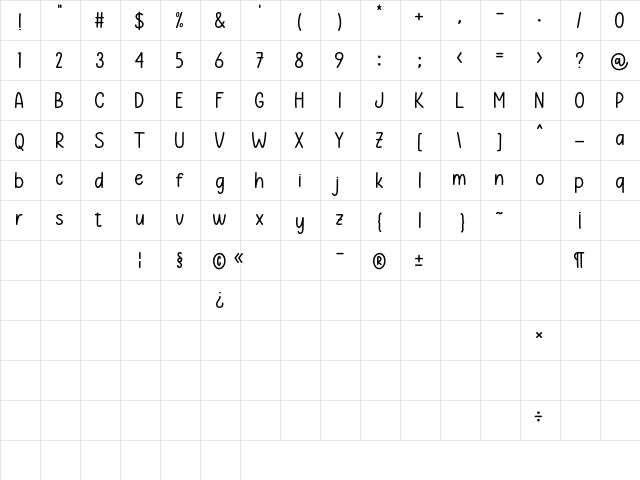
Roast Chicken Regular Font Preview
Roast Chicken Regular
Roast Chicken Regular Font Details
Design Context for Roast Chicken Typeface
Roast Chicken offers clean, dependable letterforms without strong stylistic allegiance, making it a practical choice for designers who need flexibility.
Pro Tip: Pair Roast Chicken with a font of contrasting weight or personality to build a more expressive typographic hierarchy.